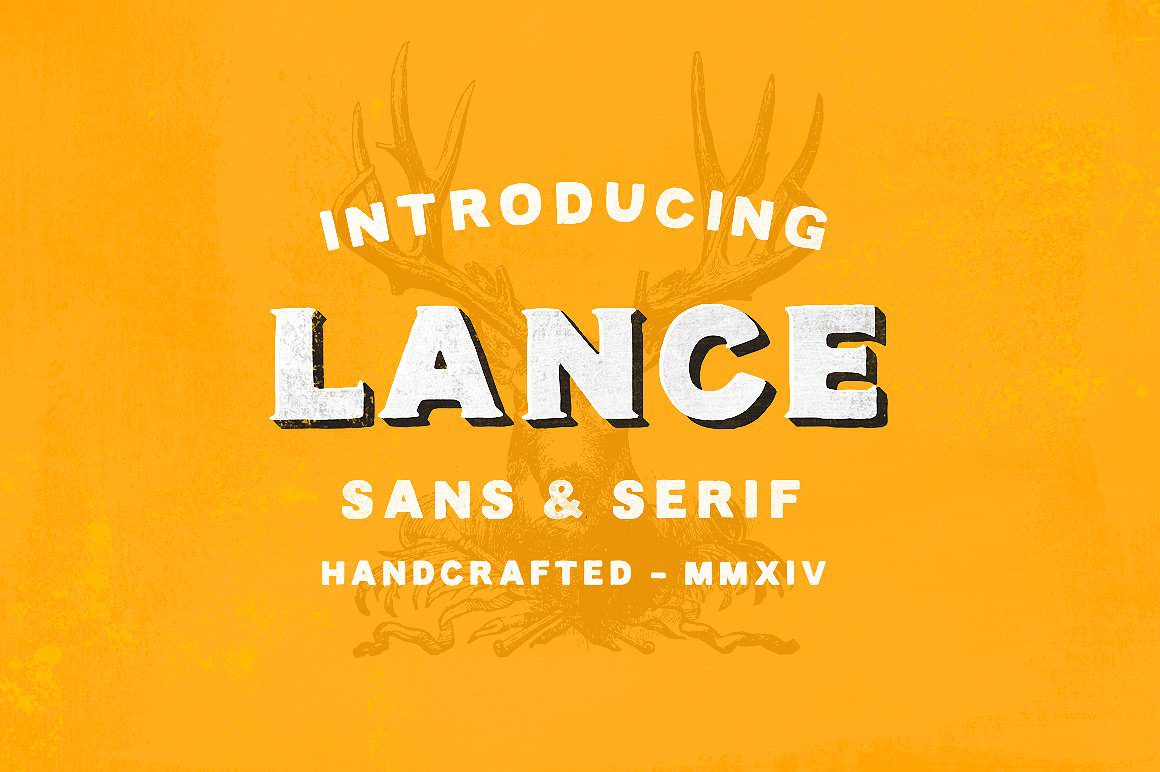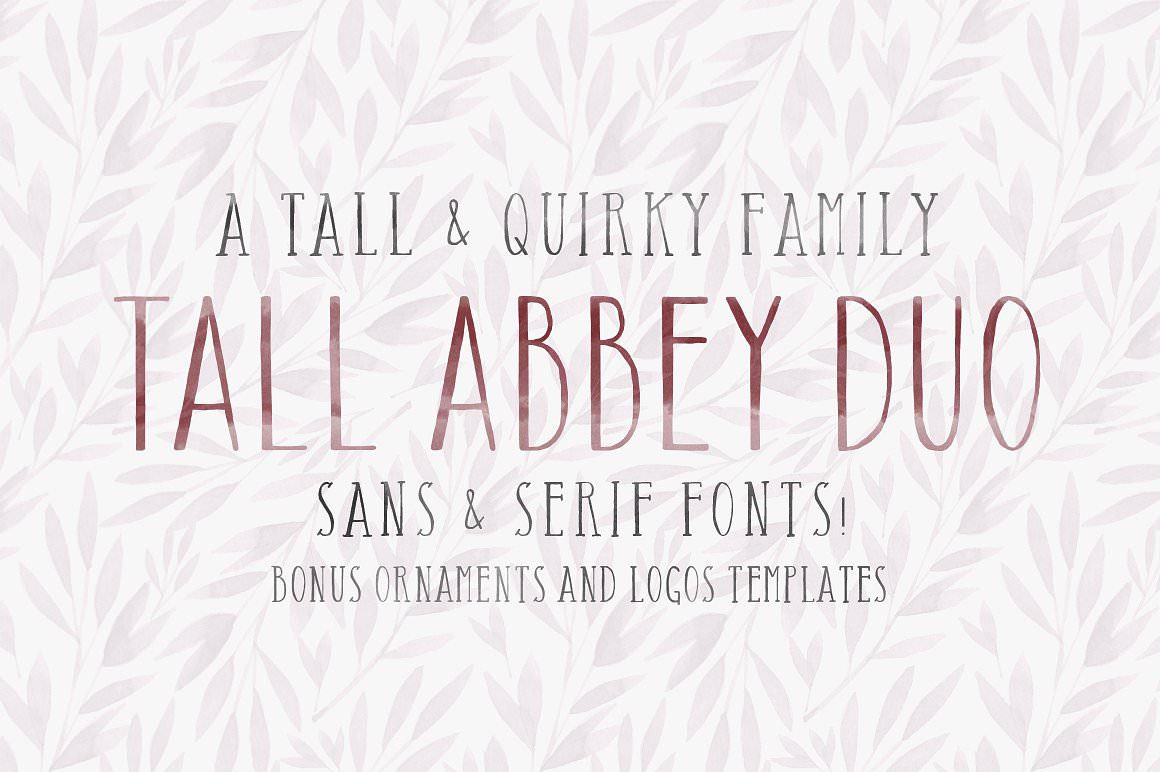
The ‘I Want it All’ Font Bundle
Introducing the new ‘I Want it All’ Font Bundle – 75 Lovingly Handcrafted Fonts
A Font for Every Project – Variety has always been a key focus throughout my design career, and this generous pack of fonts is no exception. This collection covers all angles; from brush scripts to quirky sans-serifs and everything in between. Guaranteed to provide you value time and time again.